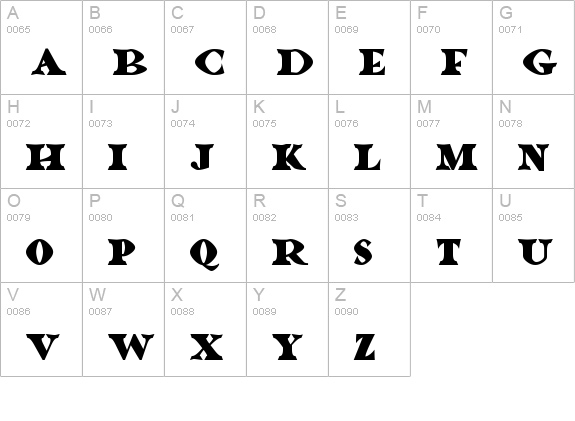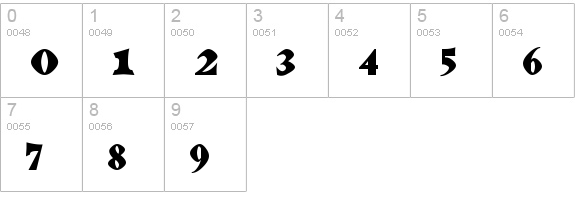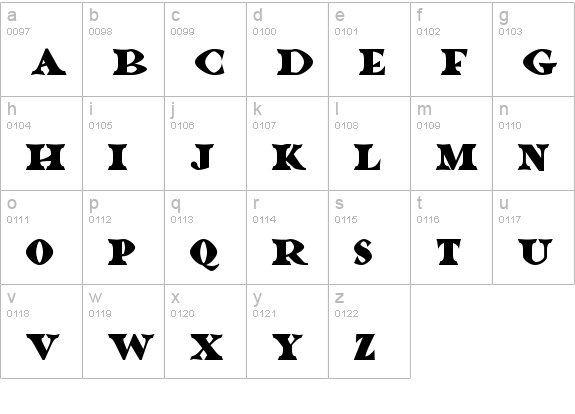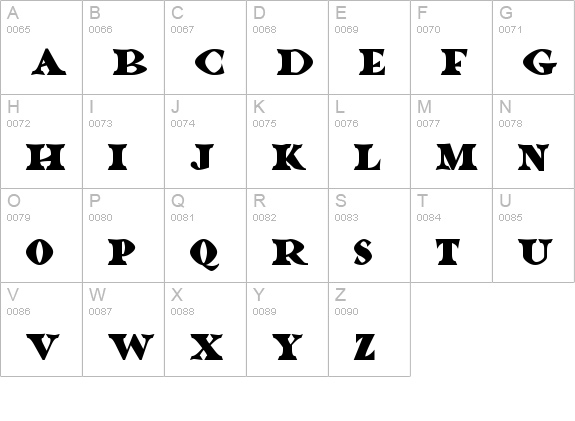
Dragon Lands Font Details
Dragon Lands is a free for personal use font in the General > Bold category, designed by Darrell Flood. It has been downloaded 224 times and is available for Windows, Mac and Linux.
Immerse yourself in a world of mythical creatures and ancient legends with Dragon Lands font. This captivating typeface embodies the spirit of adventure and fantasy, perfect for adding a touch of magic to your projects. With its intricate details and bold presence, Dragon Lands font is sure to make a statement wherever it is used.